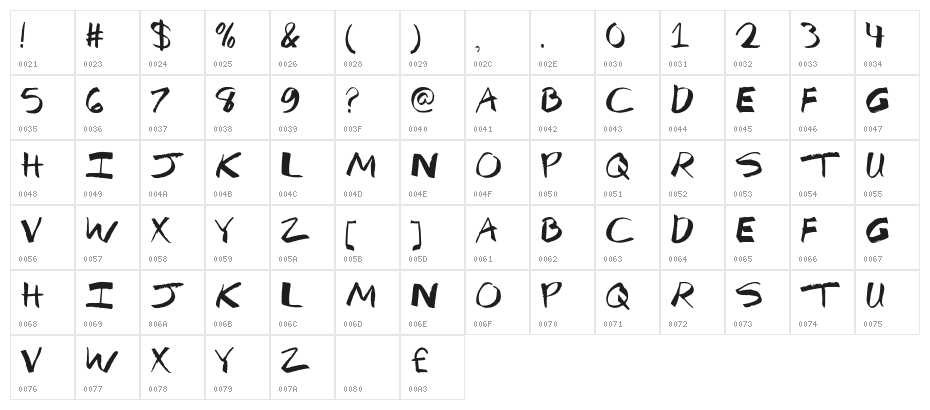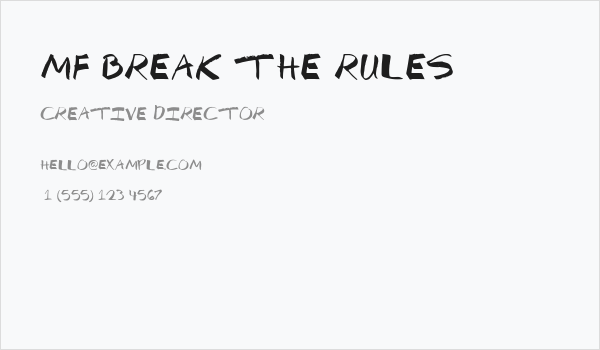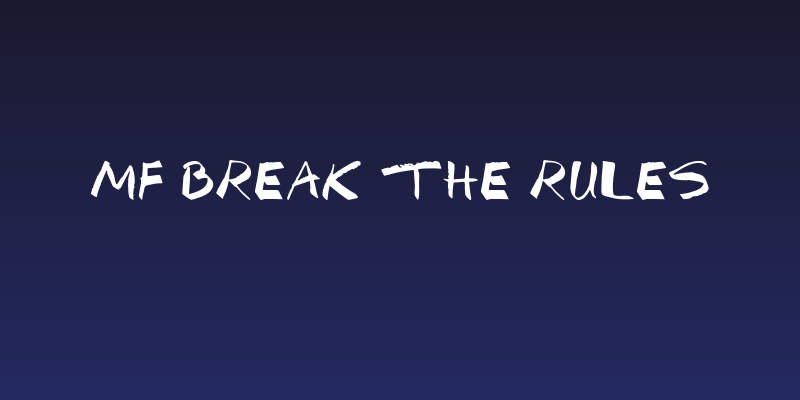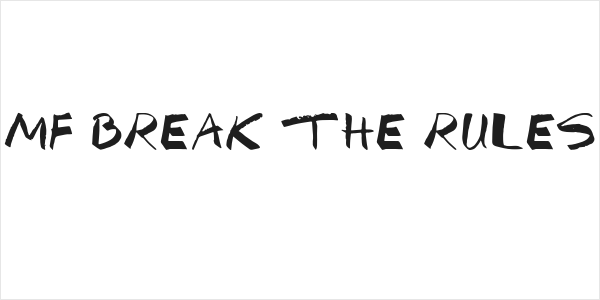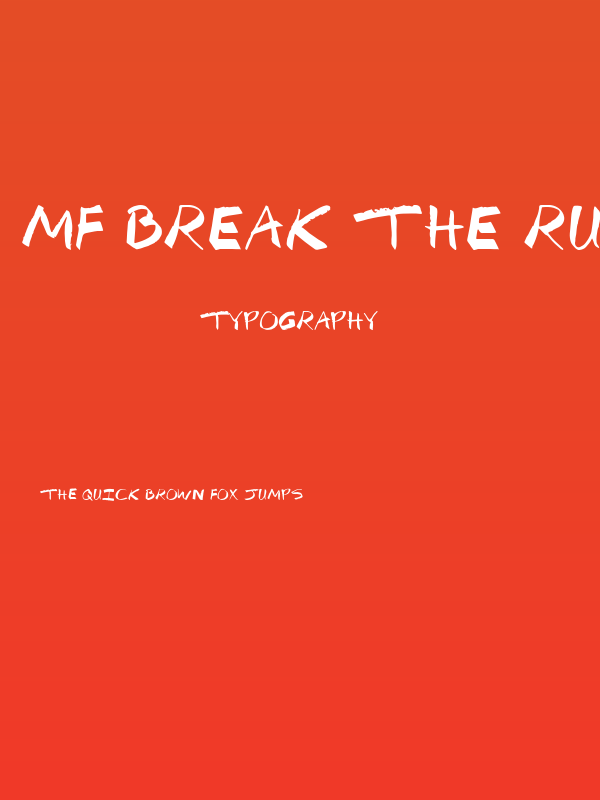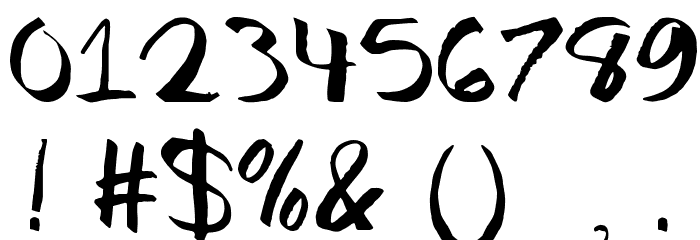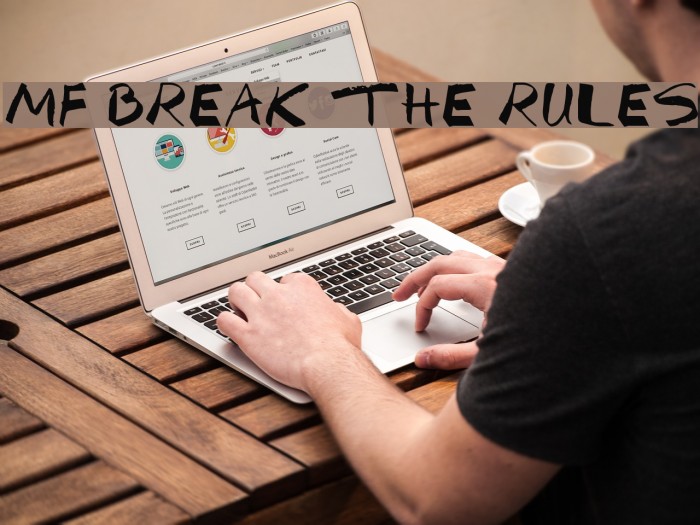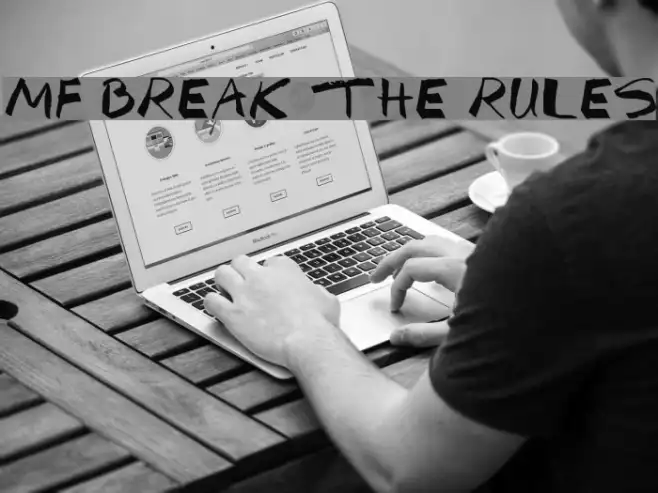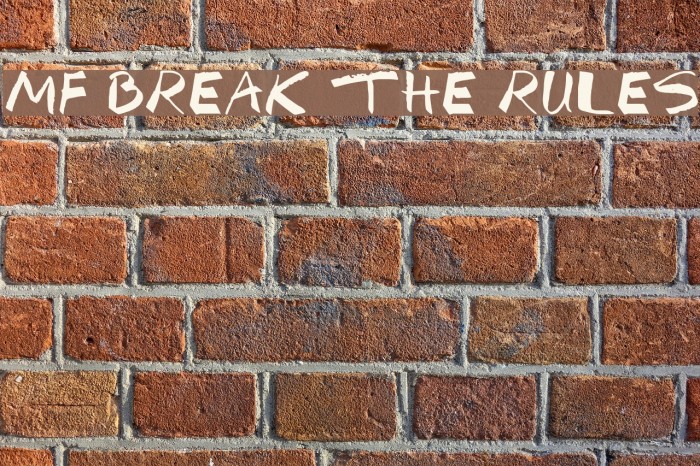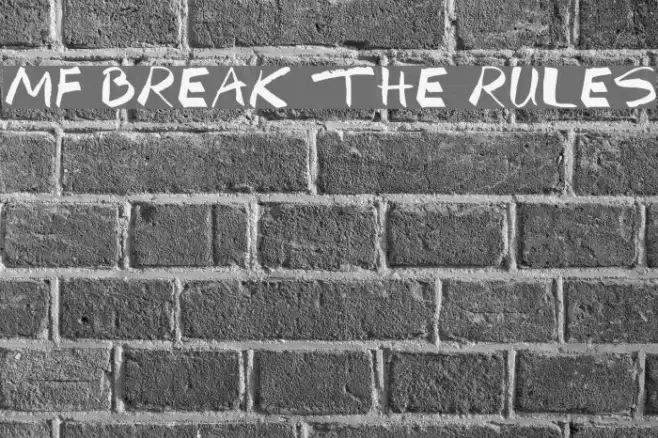
Mf Break The Rules Font
Mf Break The Rules Description
This font exudes a rebellious and energetic vibe, characterized by its bold, brush-like strokes that convey a sense of movement and dynamism. The letters are irregular and slightly slanted, giving it a hand-drawn appearance that feels both raw and expressive. The uppercase and lowercase letters maintain a consistent style, with varying thickness in the strokes that adds to its lively aesthetic. The numbers and special characters follow the same energetic style, making the font versatile for creative and unconventional projects. Its unique style is perfect for making a statement, capturing attention, and conveying a sense of individuality.
| Overall Style | Modern, Expressive |
| Proposed Projects | Ideal for posters, album covers, streetwear branding, and any project needing a bold, expressive touch. |